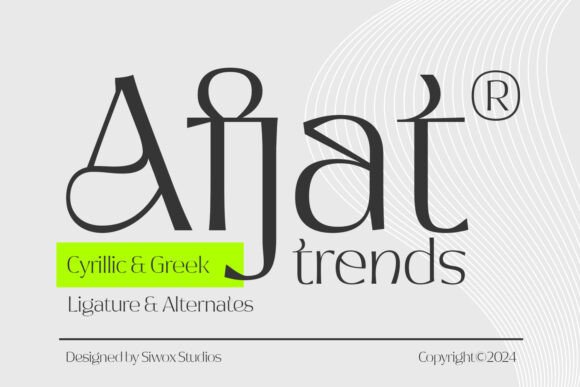
The Font that Stole My Heart: A Deep Dive into Afjat
An Honest Review: What I Love (and What I Don’t)
So, what makes Afjat so special? Here are a few things I adore about this font:
- ✨ Elegant yet relaxed: Afjat strikes the perfect balance between sophistication and laid-back charm.
- ✅ Versatile: This font works beautifully for a wide range of projects, from branding and advertising to packaging and digital media.
- 💫 Simple yet distinctive: Afjat’s clean lines and minimalist aesthetic make it easy to read and recognize.
Of course, no font is perfect, and Afjat does have a few quirks:
- 🤔 Limited language support: Afjat currently supports only a few languages, so it may not be the best choice for projects requiring extensive multilingual support.
- ⚠️ Occasional kerning issues: As with any font, there may be some kerning issues, particularly with certain character combinations.
One of the best things about Afjat is its support for OpenType features and glyphs. Here are a few tips for getting the most out of these features:
- Stylistic alternates: Afjat includes several stylistic alternates that allow you to customize the font to suit your design needs.
- Ligatures: Afjat supports ligatures, which can add a touch of elegance to your typography.
- Glyphs: The font includes a range of glyphs, from basic punctuation to more complex characters.
The Story Behind Afjat
Afjat was designed by a team of typographers who wanted to create a font that was both elegant and approachable. Inspired by classic typography and modern design trends, they crafted a font that’s perfect for a wide range of creative projects.
| What is Afjat? | Afjat is a modern display font that’s elegant, relaxed, and simple. |
| Is Afjat suitable for body text? | While Afjat is primarily designed for display use, it can be used for body text in certain contexts. |